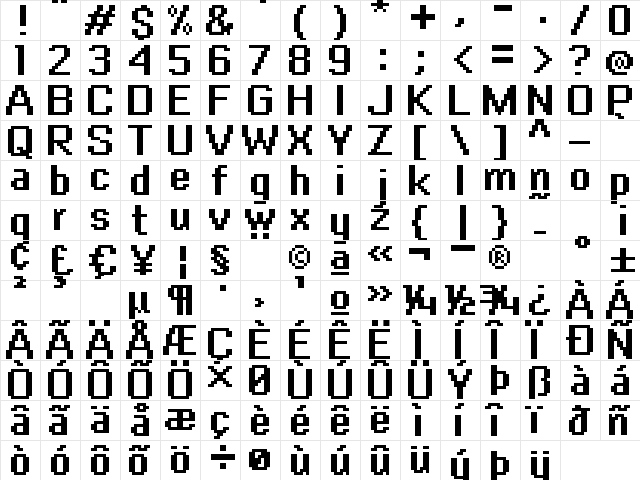
copy 10_66 Regular Font Preview
copy 10_66 Regular
copy 10_66 Regular Font Details
Design Context for copy 10_66 Typeface
copy 10_66 takes a measured approach to typography — its balanced proportions and neutral character make it a reliable workhorse for both digital and print work.